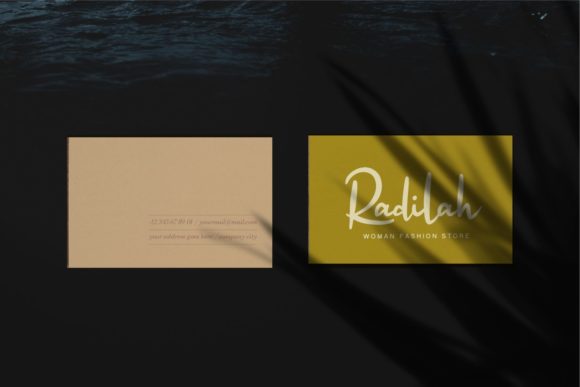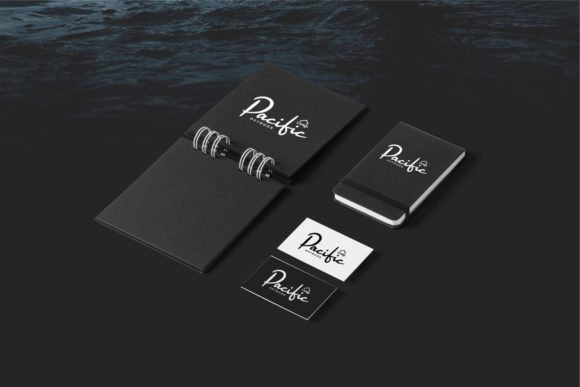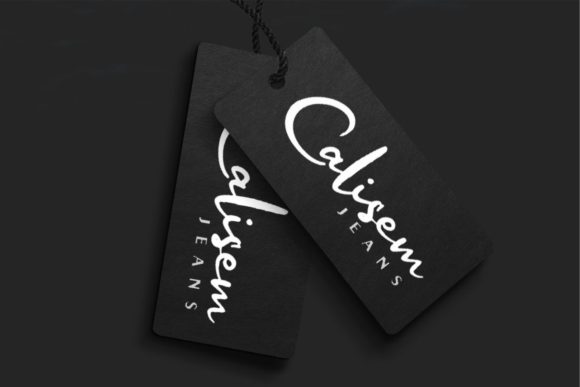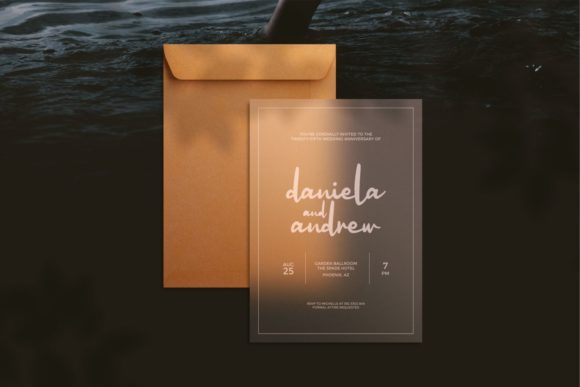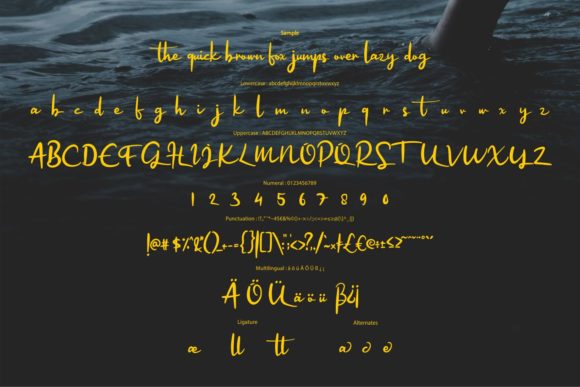
Introduction to Falide Font
Have you ever found yourself staring at a blank canvas, trying to decide on the perfect font to bring your creative project to life? The struggle is real, but what if I told you that I’ve discovered a game-changer? Say hello to Falide Font, a stunning and elegant handwritten font that’s sure to elevate your designs to the next level.
As a designer, you understand the importance of having high-quality design resources at your fingertips. That’s why I’m excited to share with you the beauty of Falide Font, which offers a delicate and classy look that’s perfect for a wide range of creative projects, from social media graphics to wedding invitations. With its balanced and varied feel, Falide Font is the perfect addition to any design arsenal.
- Designed with a modern and sleek aesthetic, perfect for use in logos, branding, and other visual identity projects.
Honest Review: Falide Font
As a designer, I’m always on the lookout for high-quality fonts that can elevate my creative projects. I recently stumbled upon the Falide Font, and I’m excited to share my honest review.
- Unique and elegant design: The Falide Font boasts a distinctive and sophisticated look that sets it apart from other fonts.
- Limited character set: The font has a relatively small character set, which may limit its use for certain projects.
- Not suitable for all design styles: While the Falide Font is perfect for elegant and sophisticated designs, it may not be the best fit for more playful or bold projects.
Overall, I’m impressed with the Falide Font. Its unique design and high-quality download make it a valuable resource for designers. While it has some limitations, I believe it’s a great addition to any design toolkit.
For the best results, use Falide Font with a transparent background to create a clean and modern look. You can also experiment with different font sizes and styles to add depth and interest to your design.
Falide Font is perfect for creative projects such as logo design, social media graphics, and presentations. It’s also great for use in marketing materials, such as brochures and flyers.